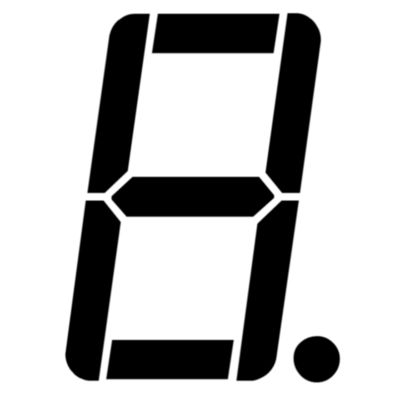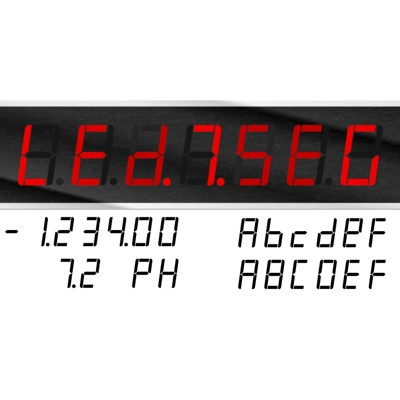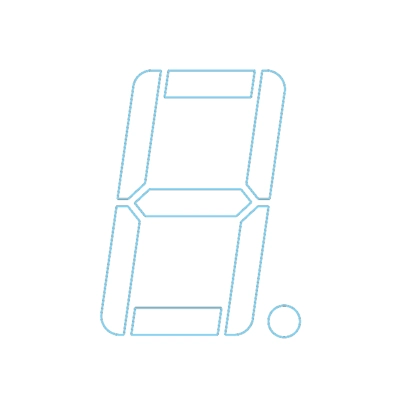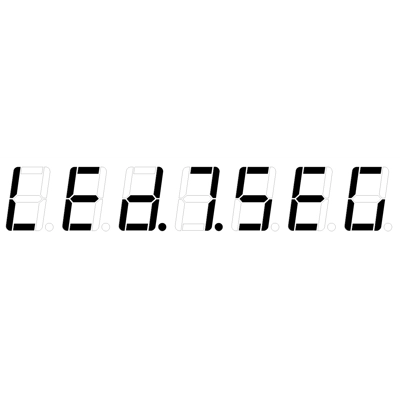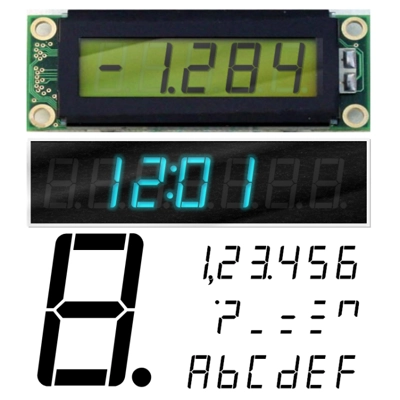
- Fonts for when you need the most realistic looking electronic display - Extremely realistic representation...
Fonts typically available for depicting electronic displays are often in the artistic style of these common LED or LCD displays. They provide the look-and-feel, but fall short when technical accuracy is required. Failure to represent an accurate and consistent representation of the real thing can be a cringe-worthy experience for the product design and marketing team, or even the hobbyist for that matter.
To solve this problem, FortuneFonts has released a range of fonts that accurately depict the displays typically found on low cost electronic devices: watches, answering machines, car stereos, alarm clocks, microwaves and toys. These fonts come with numbers, letters and symbols predefined. However, they also allow you to create your own segment combinations for the custom symbols you need.
When producing manuals, marketing material and user interfaces, accuracy is an all-or-nothing concept.